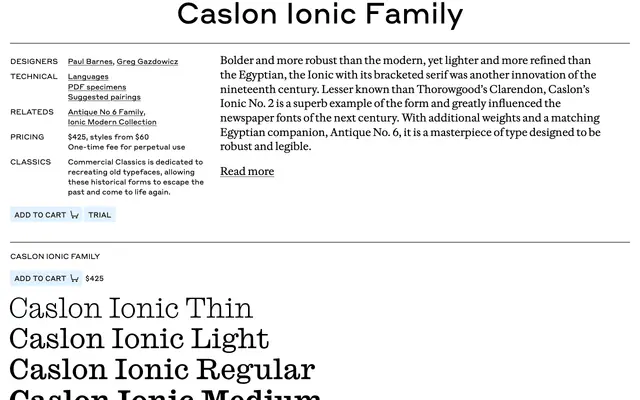
Caslon Ionic
Commercial Type · Paul Barnes · 2018
A revival of Caslon's Ionic No. 2, the bracketed-serif workhorse that shaped newspaper typography in the twentieth century.
A bracketed-serif workhorse by Paul Barnes that revives Caslon's Ionic No. 2, a lesser-known nineteenth-century innovation that sat between the modern and the Egyptian and went on to shape newspaper typography in the twentieth century. The family adds extra weights to the original and is published alongside a matching Egyptian companion, Antique No. 6, for editorial and identity work where you want a robust, legible serif with British nineteenth-century roots.
Commercial Type describe Caslon Ionic as bolder and more robust than the modern, yet lighter and more refined than the Egyptian, with a bracketed serif. They position it as a lesser-known nineteenth-century innovation alongside Thorowgood's Clarendon that greatly influenced the newspaper fonts of the next century.